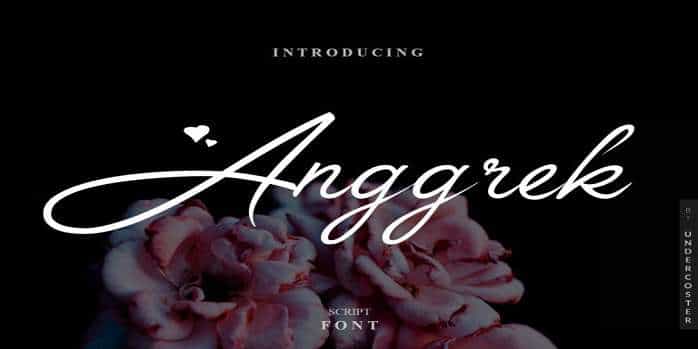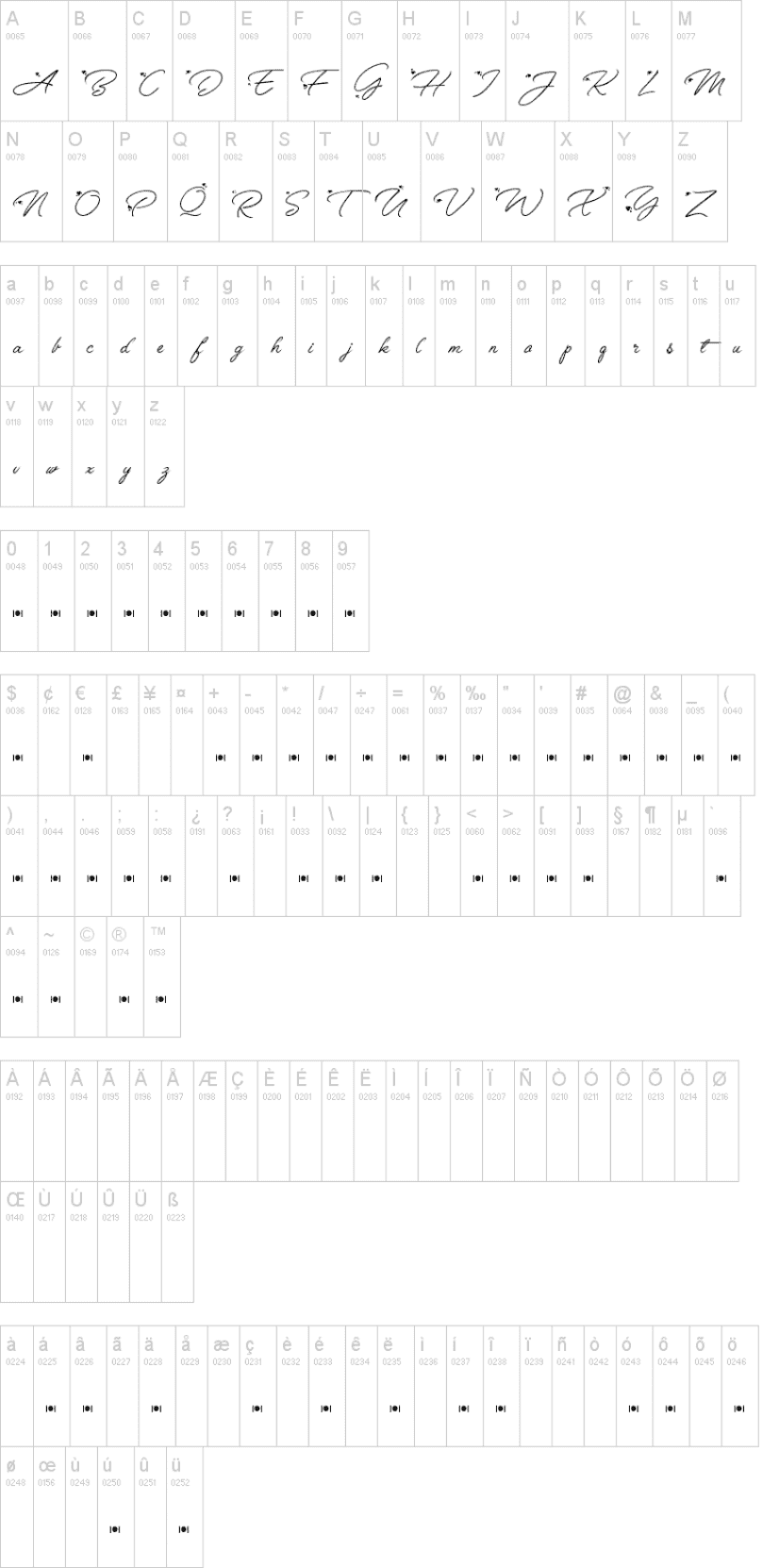
Anggrek is a great free Calligraphy type font that was created by undercoster. The demo version includes all upper and lower case letters and a few special characters as well.